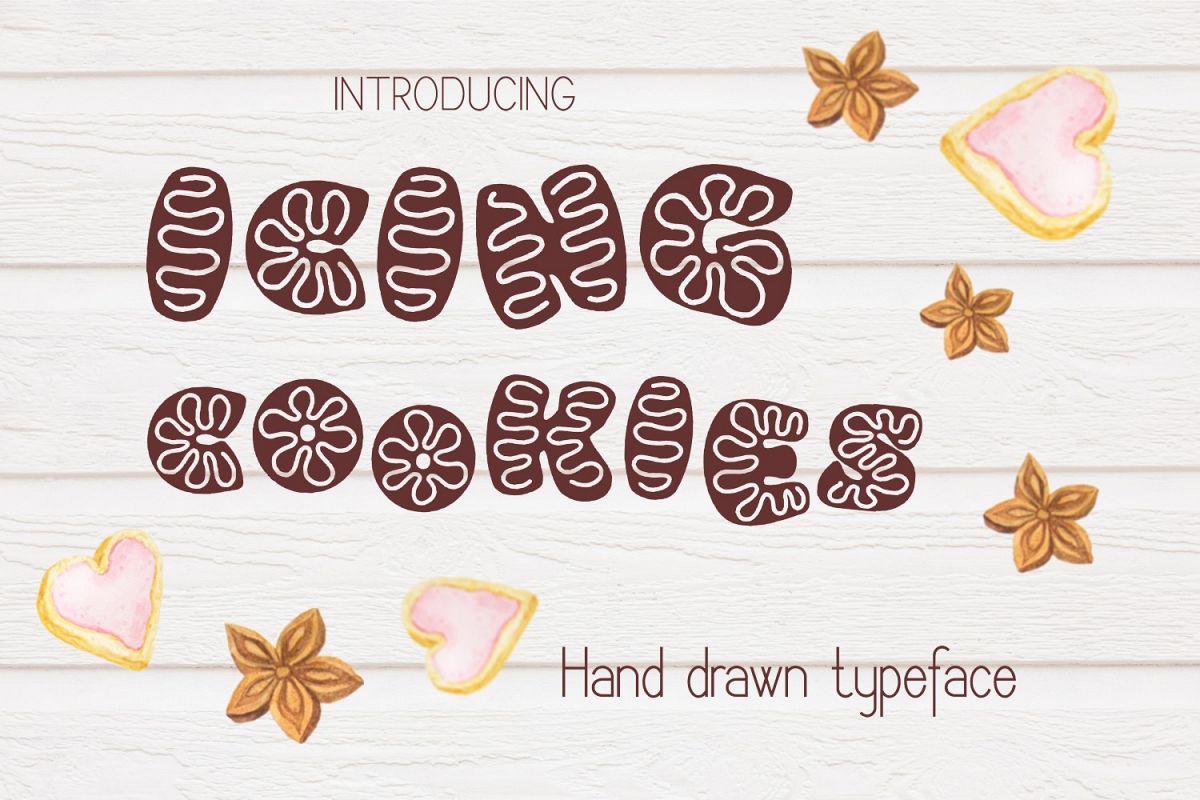
Icing cookies font
Icingcookies-Regular
Introducing Icing cookies hand drawn typeface.
Icing cookies great for titling, signage, logo, poster, flyers or t-shirts design, headlines, and more!
Icing cookies font